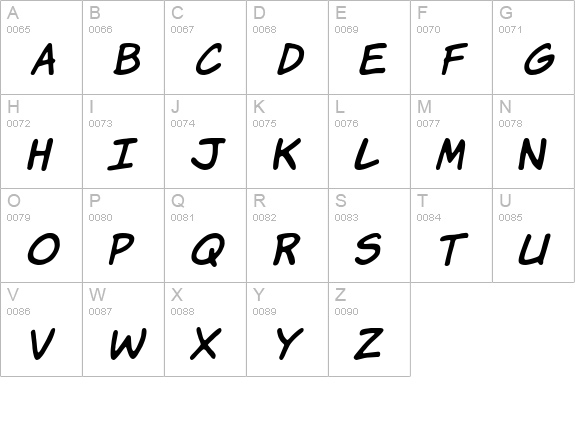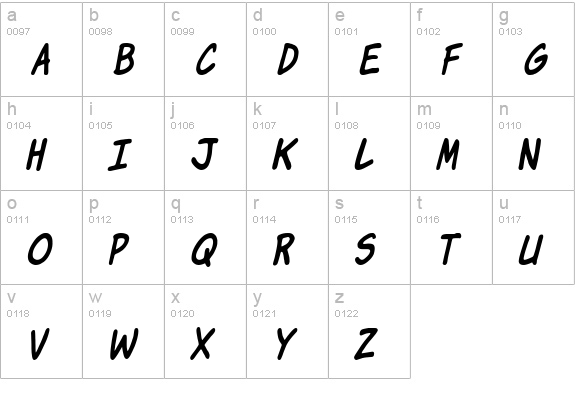
Komika Jam Italic is a distinctive, italic variant in the Komika typeface family \xE2\x80\x94 well suited to design and typography projects.
Komika Jam Italic font is a dynamic and playful typeface that adds a touch of creativity to any design project. Its slanted and quirky appearance gives off a fun and energetic vibe, making it perfect for projects that need a little extra flair. The font features bold, exaggerated letterforms with a hand-drawn feel, adding a unique and eye-catching element to your designs. What's even better is that Komika Jam Italic font is available for free download at FontsMarket.com. This means you can easily access this versatile and exciting font to use in a wide range of projects without any cost. Whether you're working on a poster, logo, website, or any other design project, Komika Jam Italic font will surely make a statement and leave a lasting impression. With its free availability, you can unleash your creativity and experiment with this font to bring your designs to life.